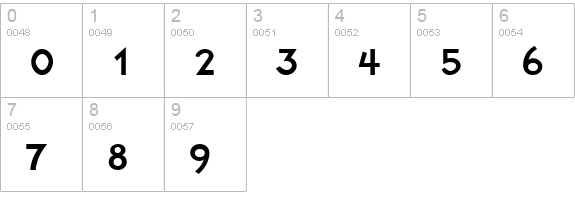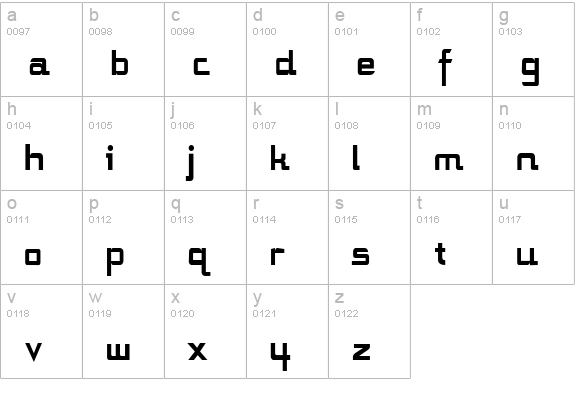
Parkway-Resortotel Font Details
Introducing the captivating and versatile Parkway-Resortotel font, a true gem for designers and typographers alike. With its elegant and modern design, this font exudes sophistication and style, perfect for a wide range of creative projects. Parkway-Resortotel is a typeface that effortlessly balances both professionalism and creativity, making it ideal for branding, logos, packaging, headlines, and more. Its clean lines and subtle curves create a harmonious composition that is visually appealing and easy to read. One of the standout features of Parkway-Resortotel is its extensive character set, which includes a variety of ligatures, alternate characters, and swashes. This allows you to truly personalize your designs and add that extra touch of uniqueness. Whether you are aiming for a minimalist or decorative look, this font has got you covered. But what truly sets Parkway-Resortotel apart is its availability. This font is freely available to download at FontsMarket.com, making it accessible to designers and creatives of all levels. With just a few clicks, you can have this incredible font at your fingertips, ready to bring your designs to life. In addition to being free, Parkway-Resortotel also comes with a commercial license, allowing you to use it for both personal and commercial projects. This means you can confidently incorporate this font into your client work, knowing that you have the legal rights to do so. So why wait? Elevate your designs with the stunning Parkway-Resortotel font. Download it for free at FontsMarket.com and unlock a world of possibilities. Let your creativity soar and make a lasting impression with this exceptional typeface.